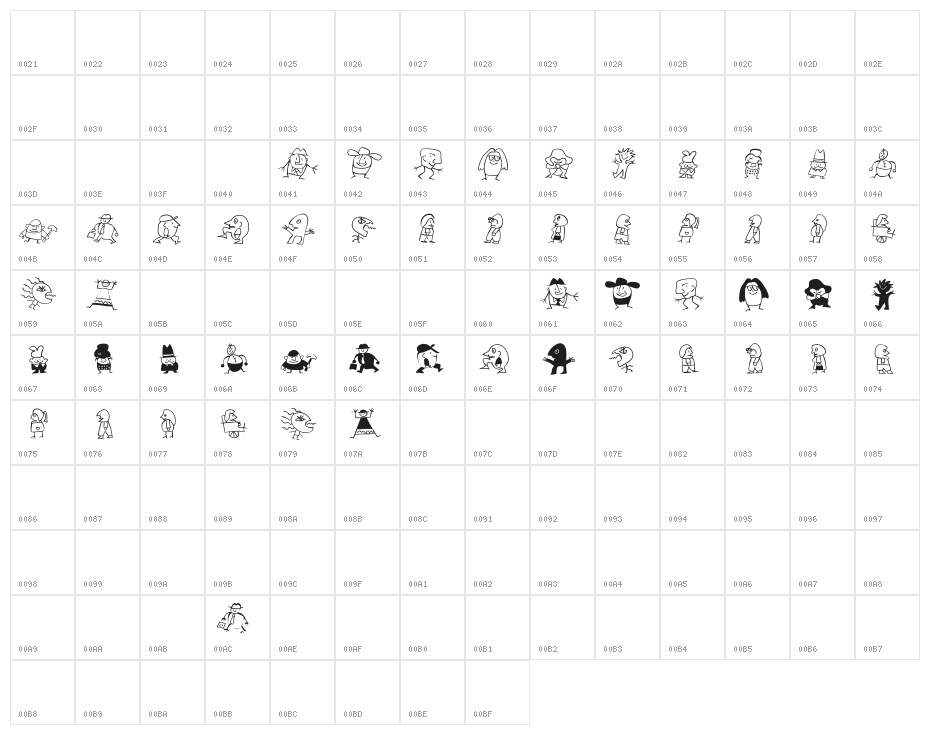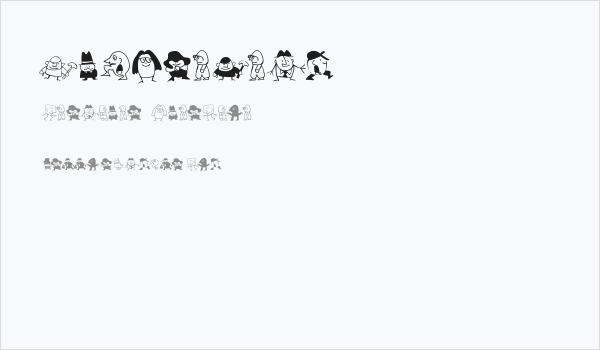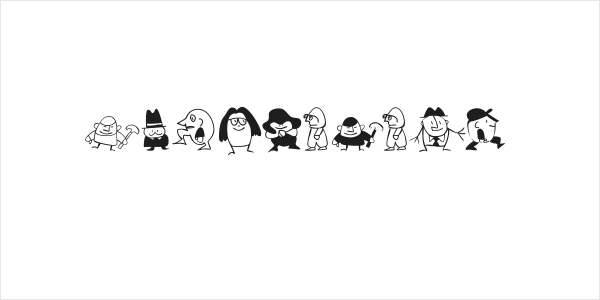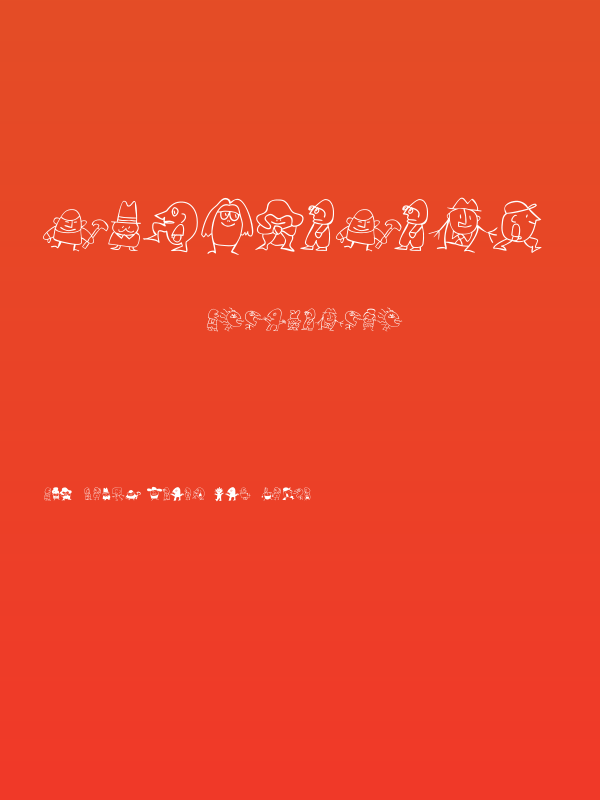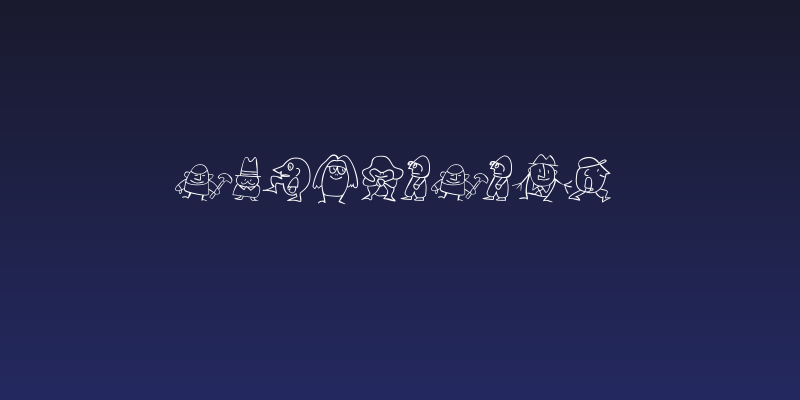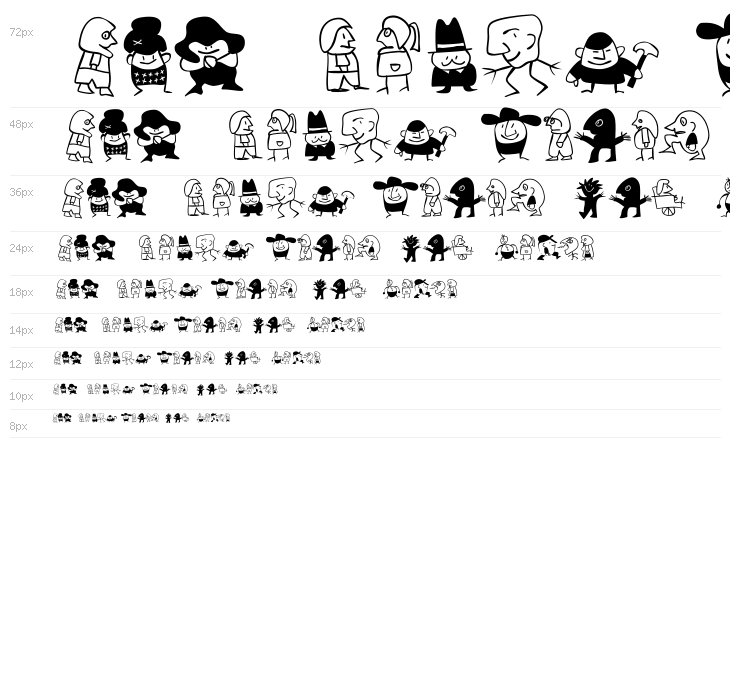
Kinderkram Font
Kinderkram Description
This is a playful and whimsical font featuring a series of quirky, hand-drawn characters. Each letter is represented by a unique cartoon figure, giving it a lively and animated appearance. The style is reminiscent of children's drawings, with exaggerated features and a sense of movement. The characters are bold and expressive, making them stand out in any design. This font is perfect for projects that require a fun and informal touch, such as children's books, playful branding, or creative posters.
| Overall Style | Whimsical, Playful |
| Proposed Projects | Ideal for children's books, playful branding, creative posters, and informal designs. |